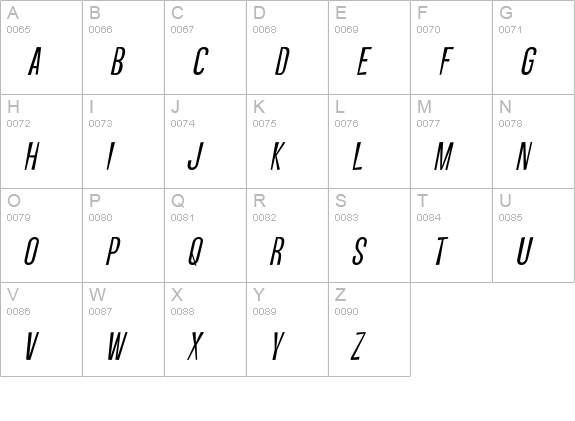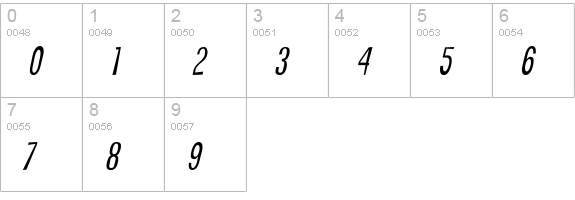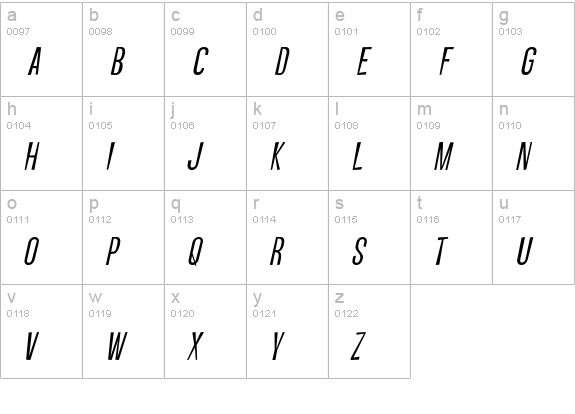
Vanishing Boy BTN Light Oblique is a refined, elegant, italic variant in the Vanishing typeface family \xE2\x80\x94 well suited to elegant body text, refined sub-headings, and luxury branding.
Vanishing Boy BTN Light Oblique font is a mesmerizing typeface that seamlessly blends elegance and modernity. With its sleek and slender letterforms, this font exudes a sense of sophistication that is perfect for any design project. The unique oblique style of Vanishing Boy BTN Light adds a touch of dynamic movement to each character, creating a visually stunning effect that captures the eye. Its delicate curves and subtle slant make it a versatile choice for both headings and body text. This font offers a harmonious balance between legibility and creativity, making it suitable for a wide range of applications. Whether you are designing a website, creating a logo, or crafting a print layout, Vanishing Boy BTN Light Oblique font will elevate your design to new heights. And the best part? Vanishing Boy BTN Light Oblique font is available for free download at FontsMarket.com. This means that you can enjoy the beauty and versatility of this font without spending a dime. So why wait? Head over to FontsMarket.com now and give your designs the touch of elegance they deserve with Vanishing Boy BTN Light Oblique font.